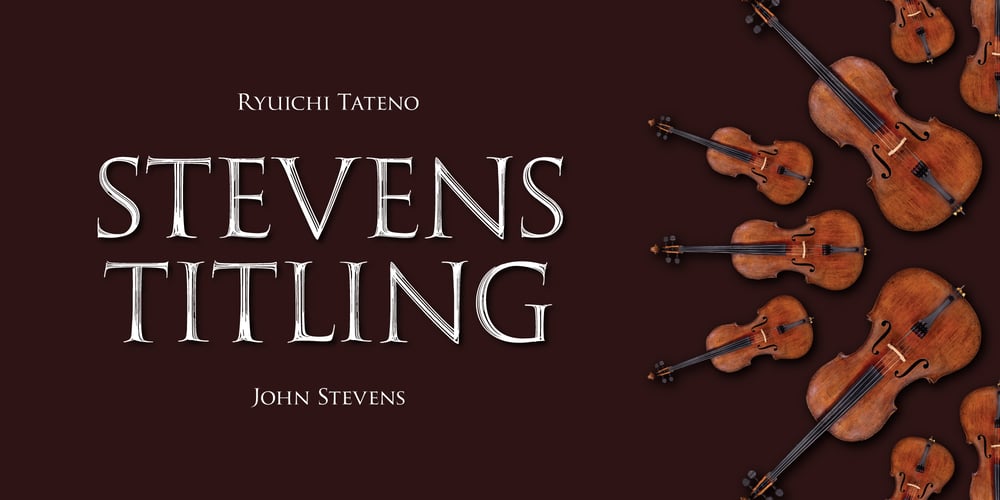
Stevens Titling
Stevens Titling font
Stevens Titling Font Family was designed by Ryuichi Tateno, John Stevens and published by Linotype. Stevens Titling contains 4 styles and family package options. Stevens Titling refers to the classic Roman alphabet as it appears on the Trajan column and numerous other monuments. With its realistic brush strokes, it shows the letterforms as they might have been sketched on the marble before the stonecutter reached for his hammer and chisel. The four fonts that constitute the Stevens Titling suite are named after animals — badger, boar, sable and wolf –, each known for the specific character of its hairs when used to make painting brushes. Sable Brush is the most formal and elegant, with solid forms which show no obvious trace of the handdrawn brush stroke; it comes with a set of small capitals for those classical titles preferred by Hollywood. In fact, each of these fonts would do a great job as a film title and poster font. The Badger Brush variant is compact and firm; Boar Brush is dramatic, and in Wolf Brush each part of the letter is made up of realistic, dry strokes.